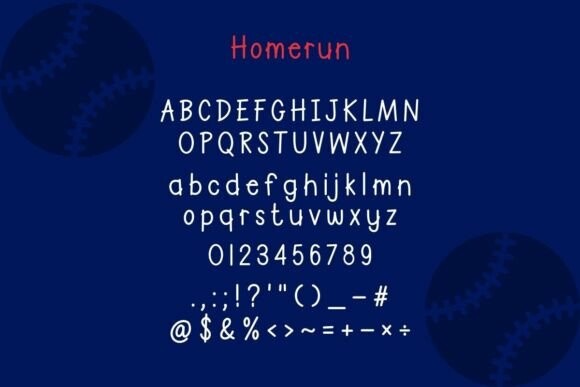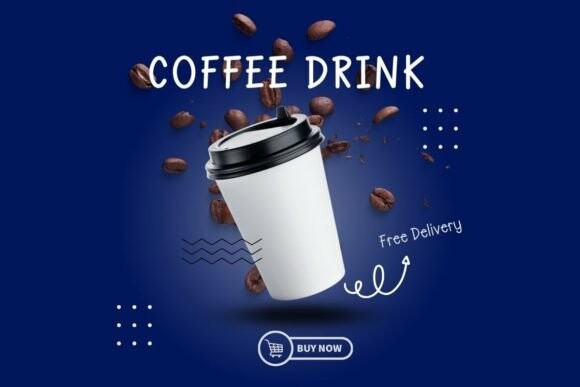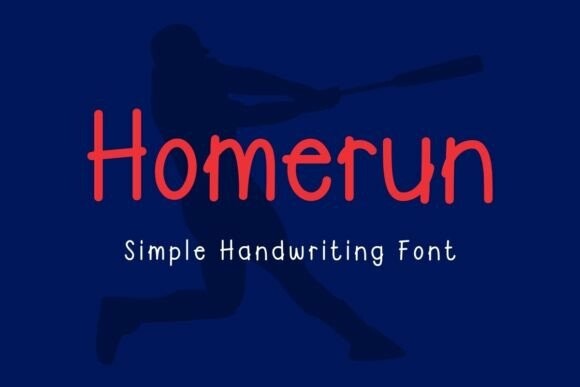
Homerun Simple Handwwriting Font
Homerun Simple handwwriting Font, a font that hits it out of the park with its simple, neat, and clean handwriting style. Enjoy the perfect balance between simplicity and readability. “Homerun” ensures that your words stand out with crystal clear precision, making it a reliable choice for all your planning, note-taking, and communication needs.